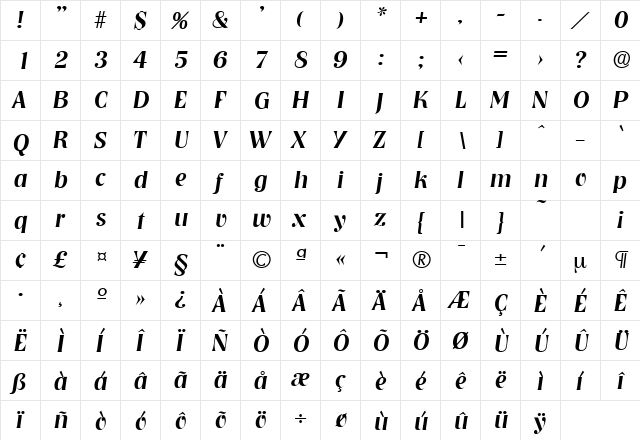
Nashville-Serial-Medium RegularItalic Font Preview
Nashville-Serial-Medium RegularItalic
Design Context for Nashville-Serial-Medium Typeface
Nashville-Serial-Medium offers clean, dependable letterforms without strong stylistic allegiance, making it a practical choice for designers who need flexibility. Its italic angle brings a sense of urgency and motion to the letterforms.